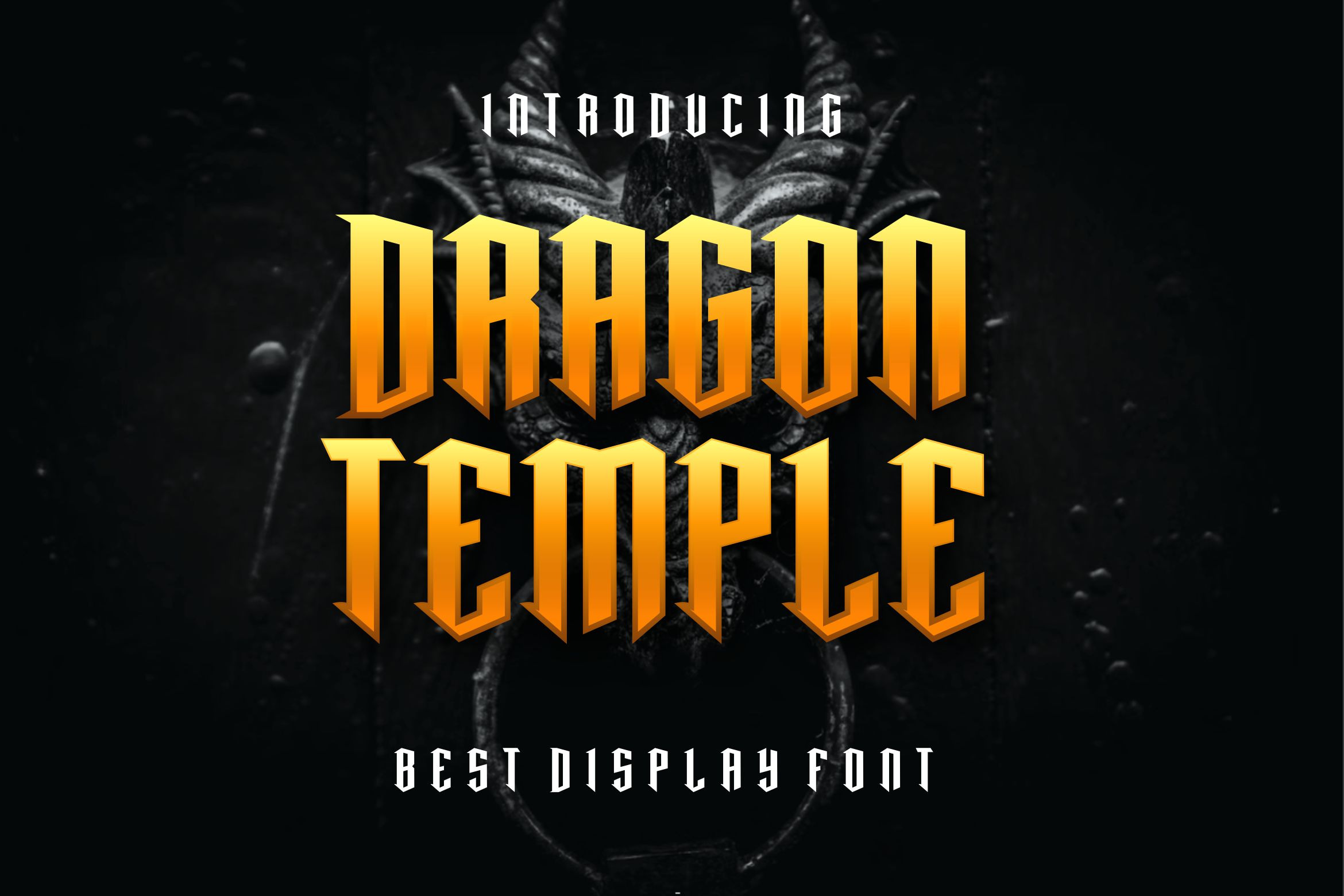
Dragon Temple Font
Presenting our new product Dragon Temple Font - Modern Font is a bold and authentic display font. This font is perfect for any branding project such as logos, t-shirt printing, creative products, and more. extraordinary in a variety of contexts.